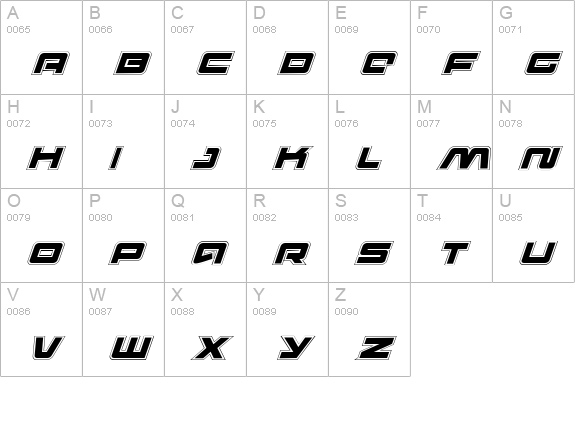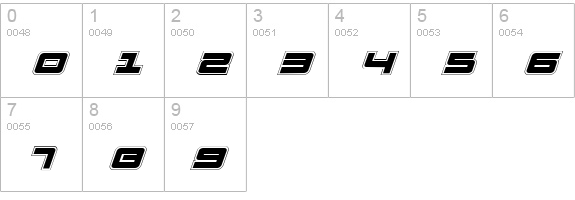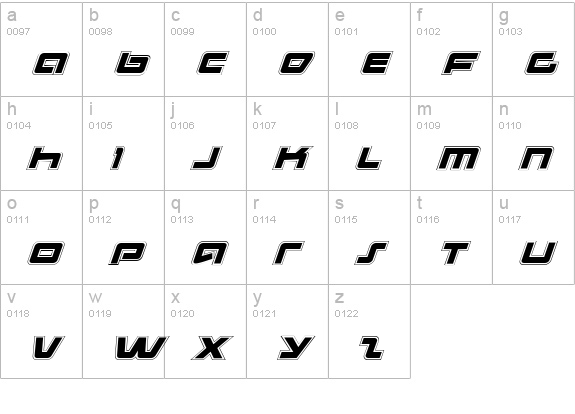
Pulse Rifle Academy Italic is a distinctive, italic variant in the Pulse typeface family \xE2\x80\x94 well suited to design and typography projects.
Pulse Rifle Academy Italic font is a sleek and modern typeface that exudes energy and dynamism. With its sharp angles and clean lines, this font is perfect for adding a futuristic touch to your design projects. The italic style adds a sense of motion and fluidity, making it ideal for conveying a sense of speed and innovation. What sets Pulse Rifle Academy Italic font apart is that it is available for free download at FontsMarket.com. This means you can easily access this striking font without any cost, making it a valuable addition to your font library. Whether you're working on branding materials, posters, or digital designs, Pulse Rifle Academy Italic font will help you make a bold statement and stand out from the crowd. Embrace the power and versatility of this font today and take your designs to the next level.